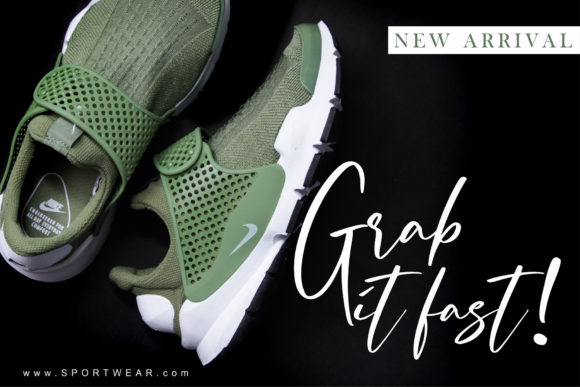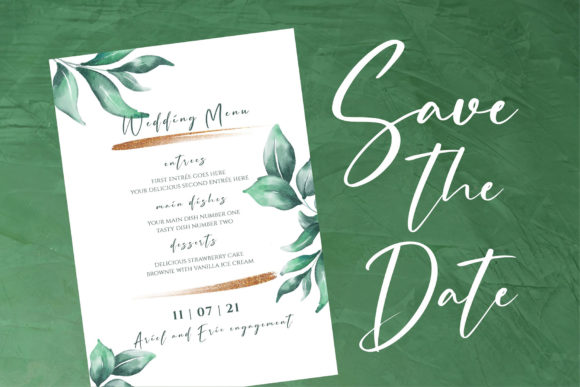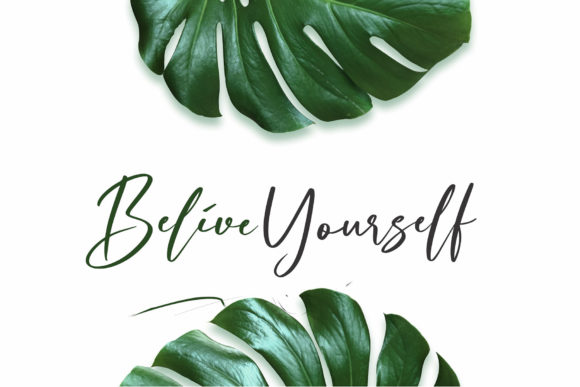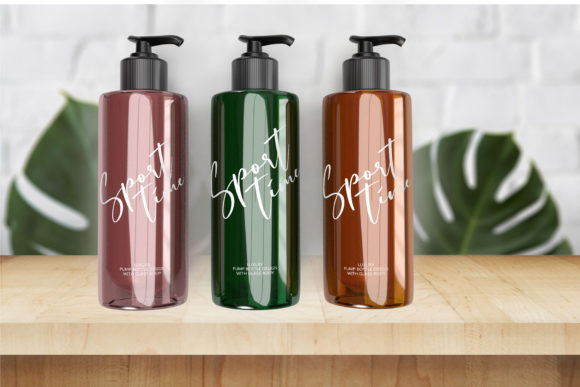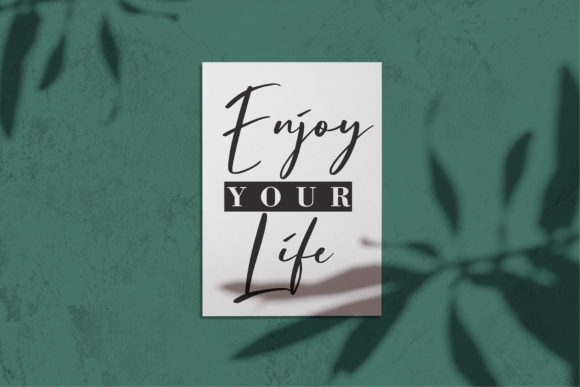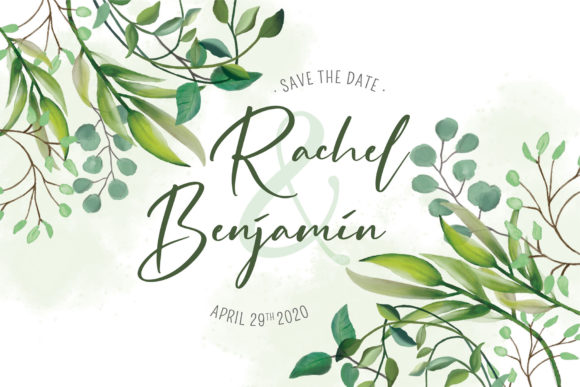
Introduction to Saridha Font
Have you ever been working on a creative project, pouring your heart and soul into it, only to be stuck on finding the perfect font to bring it all together? For designers, this is a common struggle, but what if I told you that there’s a solution that can elevate your designs to the next level? Enter the Saridha Font, a stylish and elegant script font that’s sure to make your creative vision shine.
With its relaxed and sophisticated style, the Saridha Font is a game-changer for designers looking for a high-quality design resource. Whether you’re working on a project with a transparent background or a complex layout, this font is incredibly versatile and will instantly add a touch of sophistication to your designs.
Key Features of Saridha Font
- Unique Script Font Design: Saridha Font offers a distinctive and elegant script font design perfect for creative projects.
- High-Quality Design Resource: This font is a high-quality design resource ideal for designers and artists working on various creative projects.
- Transparent Background: The font features a transparent background, allowing for seamless integration with any design or creative project.
Honest Review: Saridha Font
I recently came across the Saridha Font, and I was excited to see if it would be a valuable addition to my design resources. After diving in, here are my thoughts.
- The Saridha Font has a unique, elegant feel that makes it perfect for creative projects that require a touch of sophistication.
- The high quality of the font ensures that it will look great on any background, including transparent backgrounds.
- The font is only available in a limited range of weights, which may limit its versatility in certain design projects.
- The Saridha Font may not be the best choice for projects that require a bold, eye-catching font.
Overall, I think the Saridha Font is a great addition to any designer’s resources. While it may have some limitations, its unique style and high quality make it a valuable asset for creative projects. With a little creativity, the Saridha Font can help take your designs to the next level.
Saridha Font is commonly used in creative projects, such as graphic design, branding, and digital art. Its high quality and unique design make it an excellent choice for designers looking to add a touch of elegance to their work.